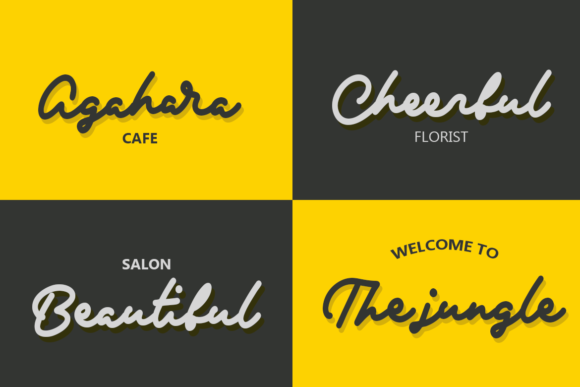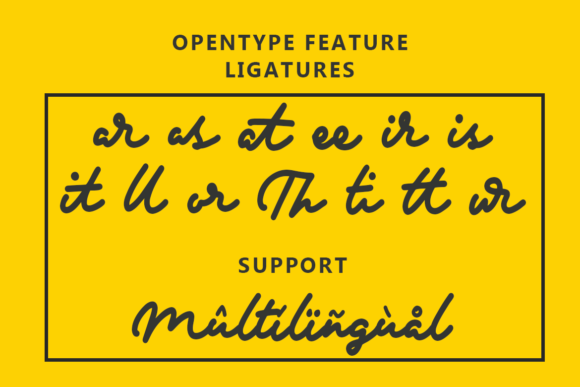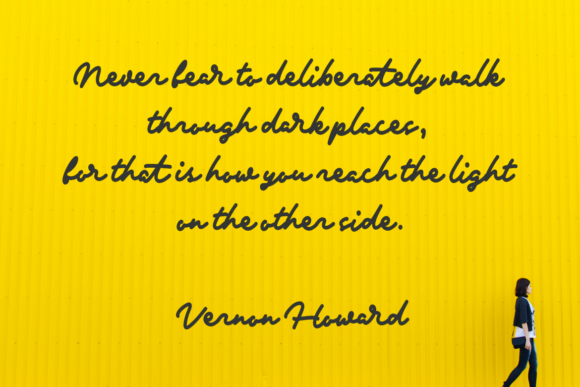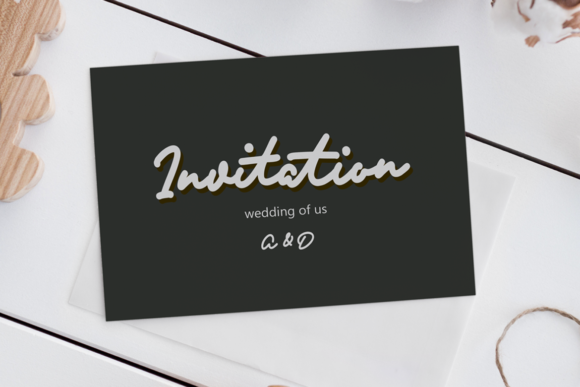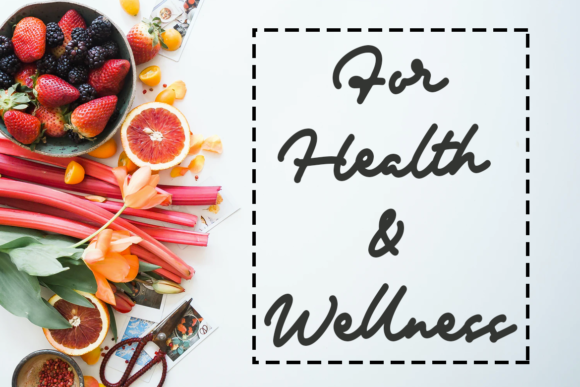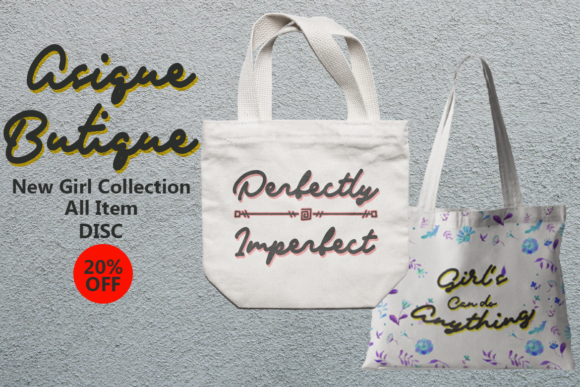
The Perfect Script for Your Next Creative Masterpiece
Have you ever stared at a blank canvas, searching for the perfect font to bring your design to life? The moment of truth arrives when you finally find that elusive combination of style and elegance that elevates your project from good to great. For designers and creatives, this is the thrill of the chase, and it’s exactly what the Beelinio Font is designed to deliver.
Beelinio Font is a bold and classic script font that’s perfect for logos, printed quotes, invitations, product packaging, and much more. Its timeless appeal makes it a valuable addition to any designer’s toolkit, offering a unique blend of sophistication and playfulness that’s sure to capture attention. Whether you’re working on a high-end branding project or a personal creative endeavor, the Beelinio Font is an excellent choice that’s sure to inspire your next masterpiece.
Beelinio Font Key Features
- Font Family: Beelinio comes in two font styles, Regular and Italic, with 256 glyphs per style.
- Unique Characteristics: Beelinio features a unique blend of modern and vintage elements, with a distinctive rounded shape and elegant lines, making it perfect for creative and artistic projects.
Beelinio Font Review
I recently had the chance to work with the Beelinio Font, and I must say it’s a unique and interesting addition to any design project. Here are some of my thoughts on what works well and what doesn’t:
- Beelinio Font’s playful and whimsical feel is perfect for projects that need a touch of fun and personality.
- The font’s bold and expressive lines make it ideal for headings and titles, where you want to grab the user’s attention.
- The font’s versatility allows it to work well in both digital and print media, making it a great choice for designers who need a single font to cover all their bases.
- The font’s unique style may not be to everyone’s taste, and some users may find it too playful or overwhelming.
- The font’s expressiveness can sometimes make it difficult to read, especially in large blocks of text.
- The font’s versatility can also make it feel a bit generic or unoriginal, especially when used in projects that don’t require a lot of personality.
Overall, I think the Beelinio Font is a great addition to any designer’s toolkit, but it’s not a one-size-fits-all solution. It’s perfect for projects that need a touch of personality and whimsy, but may not be the best choice for more formal or professional projects.
Beelinio Font is ideal for creative projects, such as:
1. Graphic design
2. Branding
3. Social media graphics
For best results, use Beelinio Font in combination with bold and bright colors to create a visually appealing design.